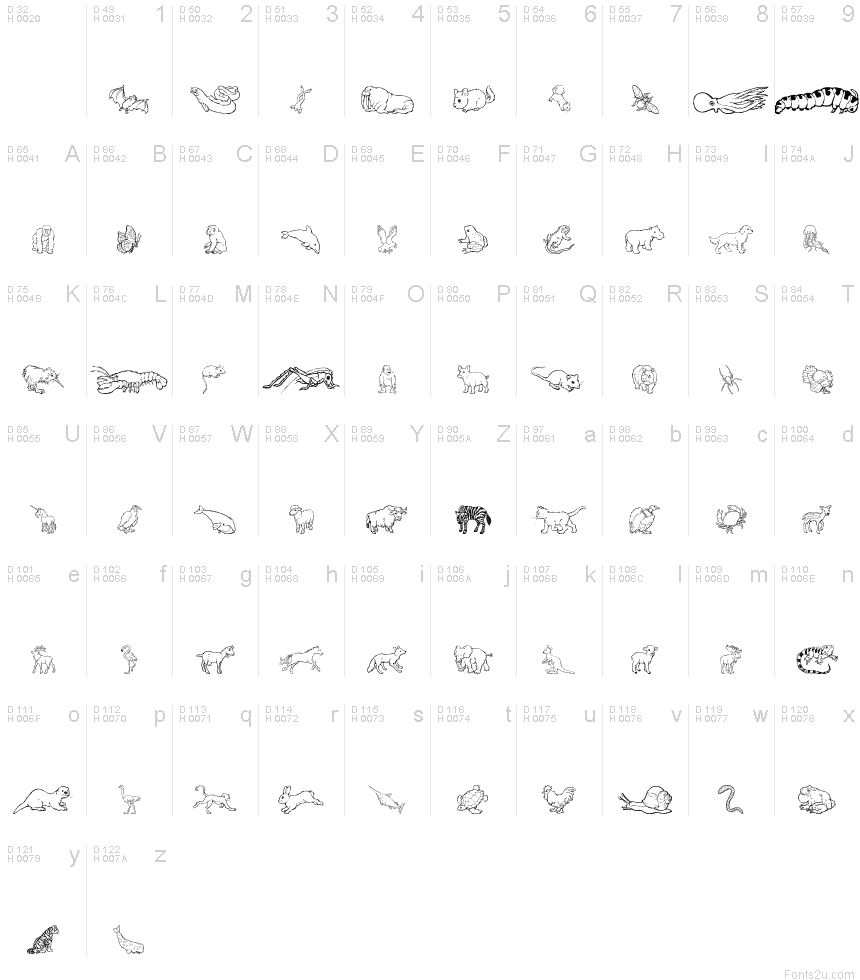
Nina's Animals
Nina's Animals by Gorilla Blu is a free animal dingbat font that gathers hand-drawn creatures into a loose natural-history set rather than a cute cartoon one. The mix of scratchy outlines, light interior detail, and alert side-view poses gives the animals a lively field-sketch character across the collection.
That approach makes sense for classroom worksheets, nature club flyers, zoo signage, scrapbook accents, and themed labels where small animal illustrations need more personality than generic icons. The slightly rough drawing style also helps in children's projects and informal posters, especially when you want foxes, lizards, cats, fish, and insects to feel observed rather than polished.